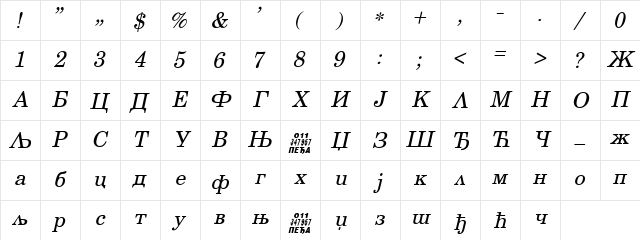
C_Century Italic
C_Century Family
Design Context for C_Century
C_Century is a composed and adaptable typeface that performs quietly and consistently across a wide range of design contexts. The slanted form adds forward momentum and visual energy.
Pro Tip: Use C_Century for emphasis, pull quotes, and subheadings where its slanted energy can add rhythm to the layout.